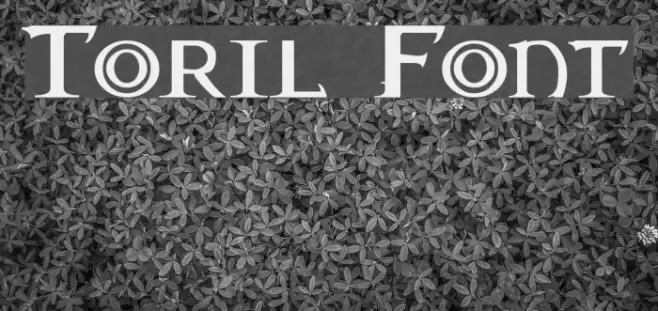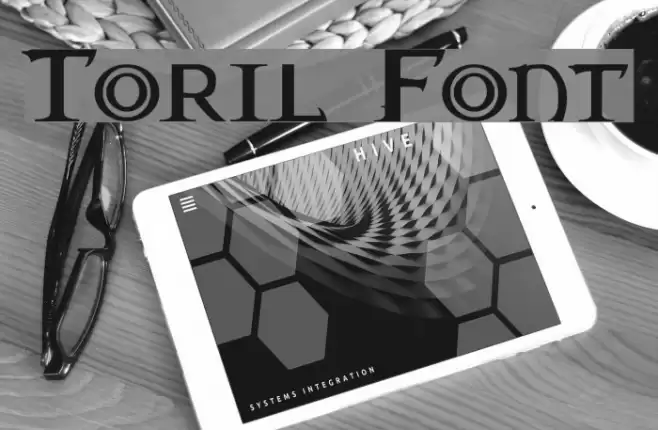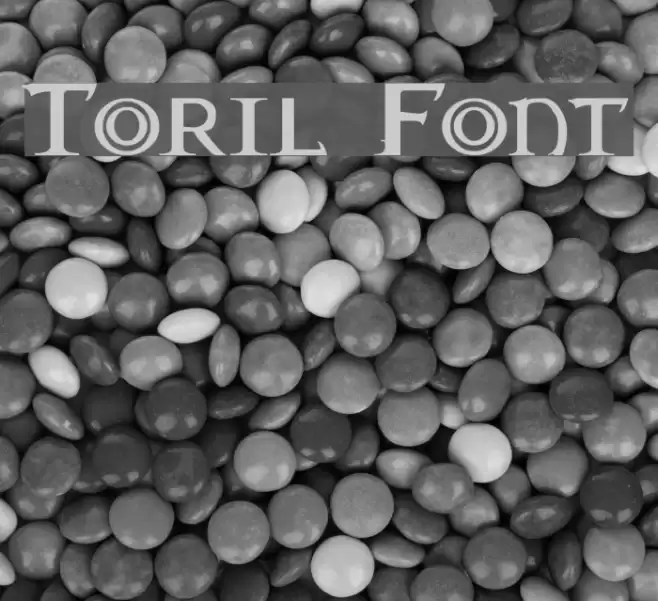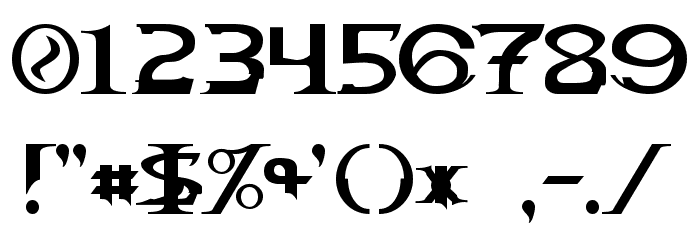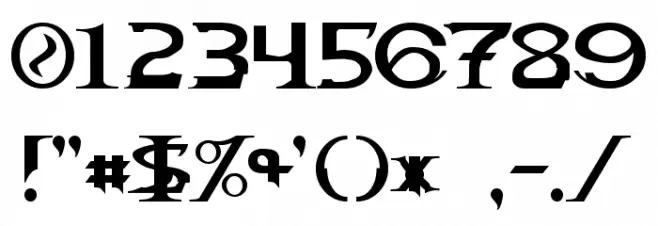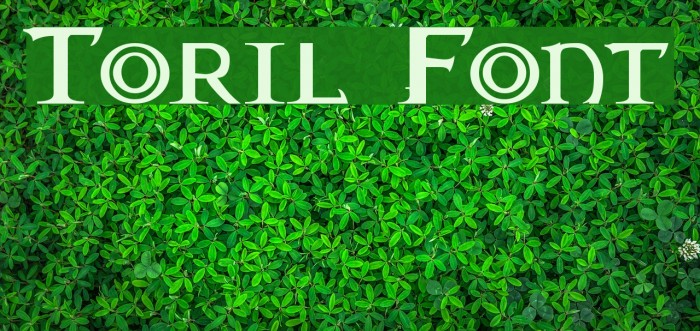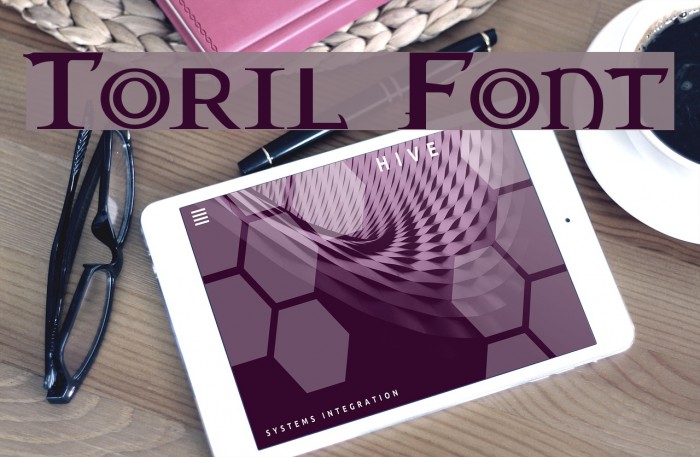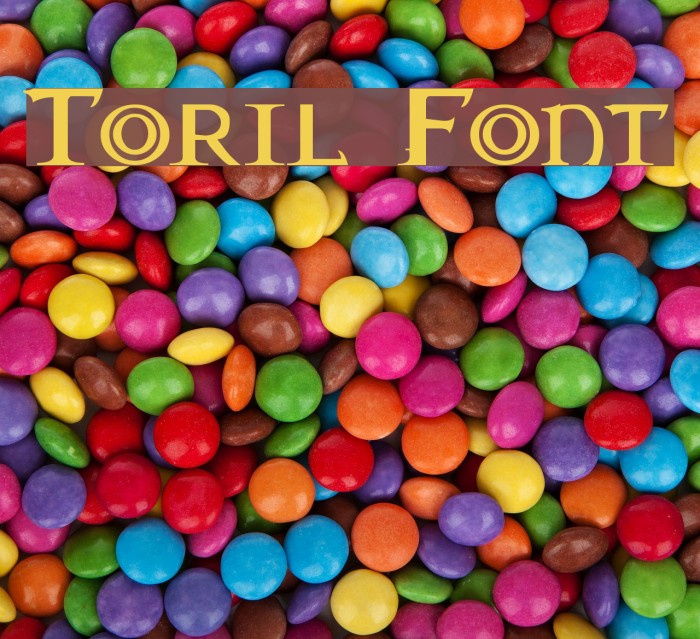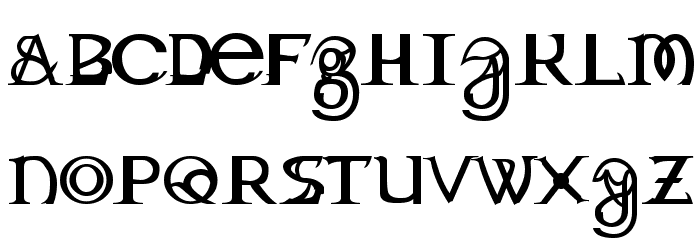
Toril Font
Toril Description
This font exhibits a unique and artistic style characterized by its bold and decorative elements. The letters feature intricate curves and sharp edges, creating a dynamic and eye-catching appearance. The uppercase and lowercase letters maintain a consistent design, with some characters incorporating additional flourishes that enhance their visual appeal. The numerals are equally stylized, with distinctive shapes that match the overall theme. Special characters are designed with the same attention to detail, making them stand out. This font's elaborate design makes it suitable for projects that require a strong visual impact.
A bold and decorative font with intricate curves and sharp edges from Uncategorized fonts.